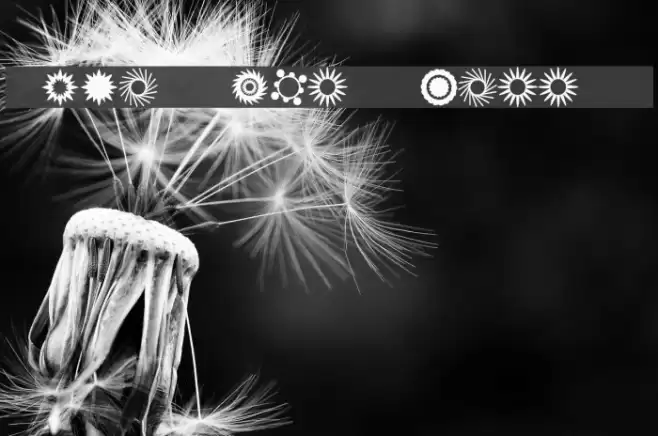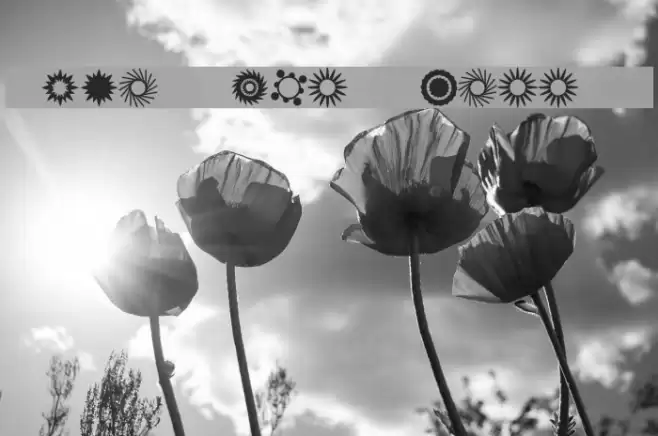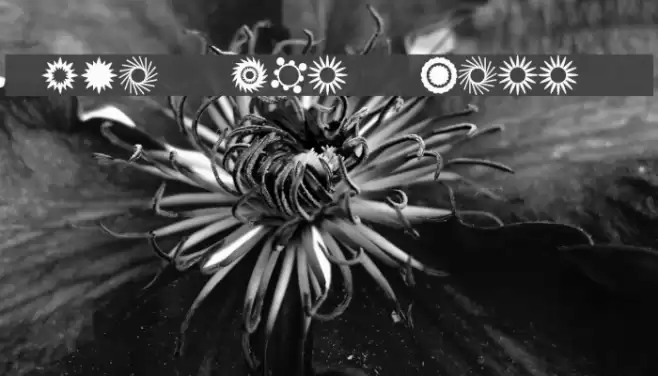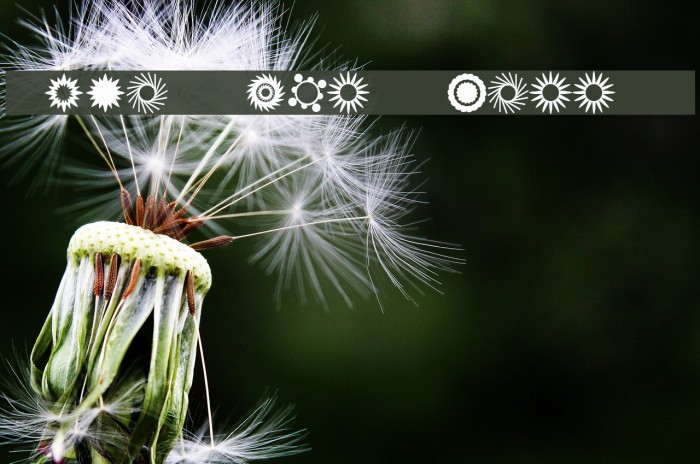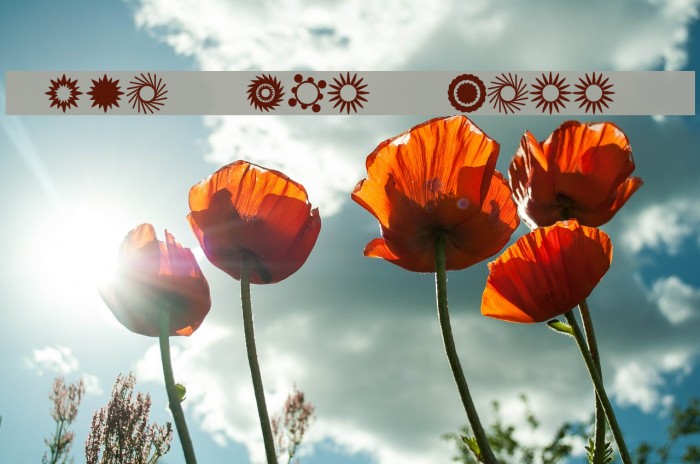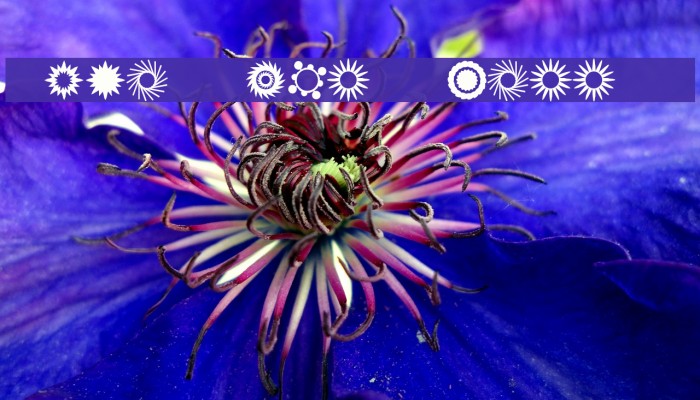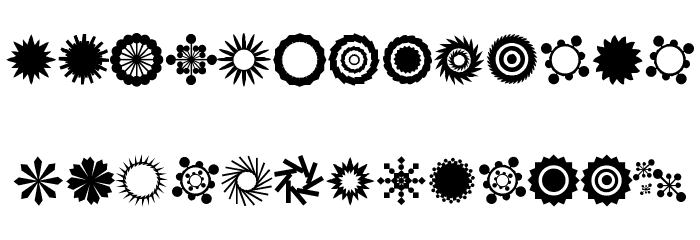
Star Time Three JL Font
Star Time Three JL Description
This is a decorative font featuring a variety of intricate, star-like and geometric symbols. Each character is a unique design, combining elements of symmetry and abstract shapes. The designs range from simple circular patterns to complex multi-pointed stars, some with additional embellishments like dots or lines. The overall aesthetic is playful and artistic, making it suitable for creative projects that require a touch of whimsy or a retro feel. The characters are bold and visually striking, ensuring they stand out in any design.
A decorative font with intricate star and geometric symbols from Uncategorized fonts.
- Proposed Projects: Ideal for use in artistic projects, logos, posters, or any design requiring decorative elements.
- Use Case: Logos, Posters, Decorative elements